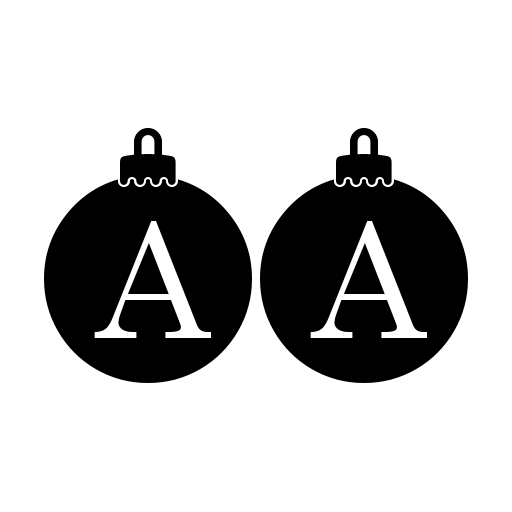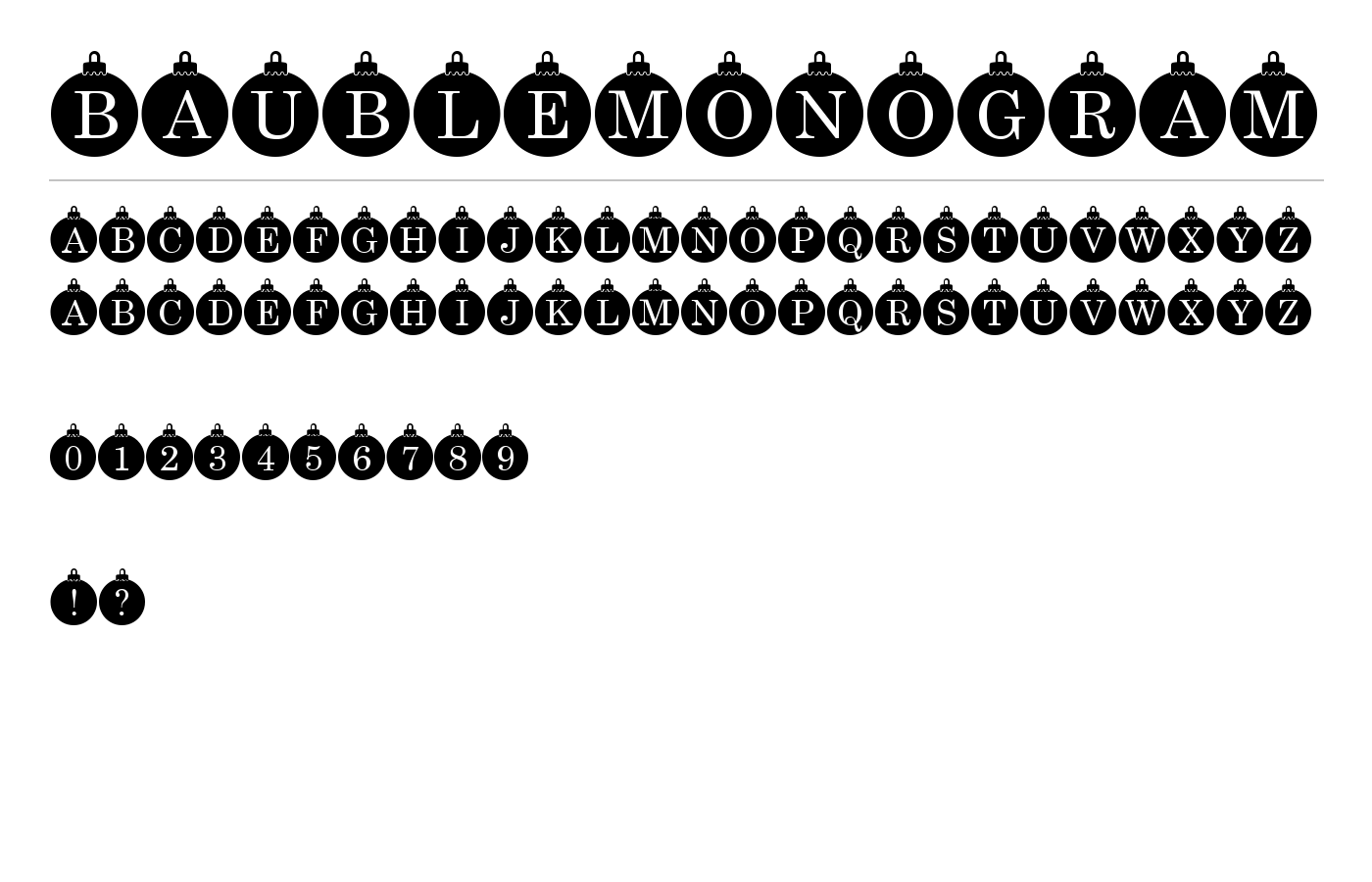
Bauble Monogram is a playful serif font that transforms each letter and number into a decorative Christmas bauble, combining classic serif letterforms with festive ornament shapes. Its elegant serif details and bold contrast make it ideal for holiday-themed designs, invitations, and monogram projects where a joyful and stylish seasonal touch is desired. This font works best for eye-catching headlines, logos, and festive branding that seeks to evoke warmth and celebration.
Bauble_Monogram Font
About Bauble_Monogram Font